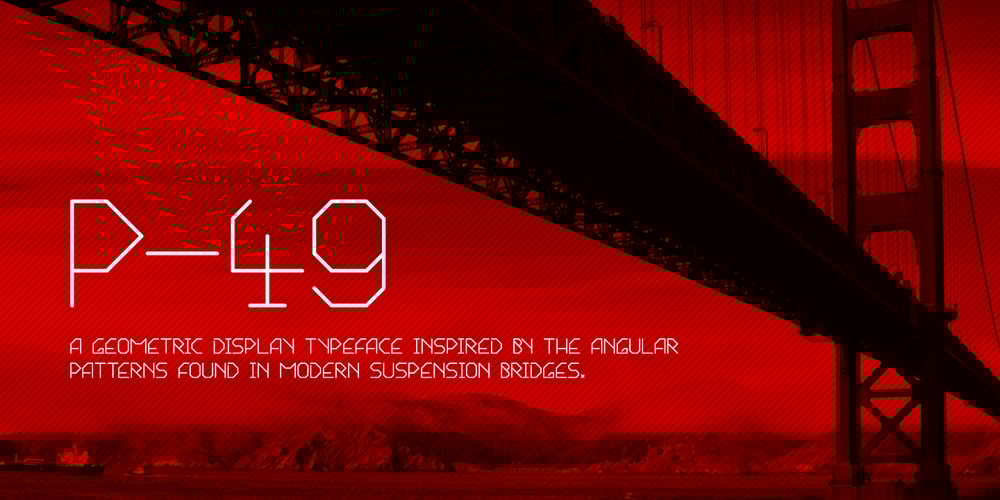
P49 Font Family was designed by David Nathan Davies and published by dn.type. P49 contains 4 styles and family package options. P—49 is a geometric, unicase sans-serif typeface inspired by the angular patterns found in modern suspension bridges. Each letter is constructed on a grid made up of 90° and 45° angles, drawn from the steel trusses supporting the imposing vertical towers of suspension bridges. Every letter, number and punctuation mark strictly follows the grid creating a uniform, contemporary industrial feel to the typeface making it ideal for display use in large point sizes.